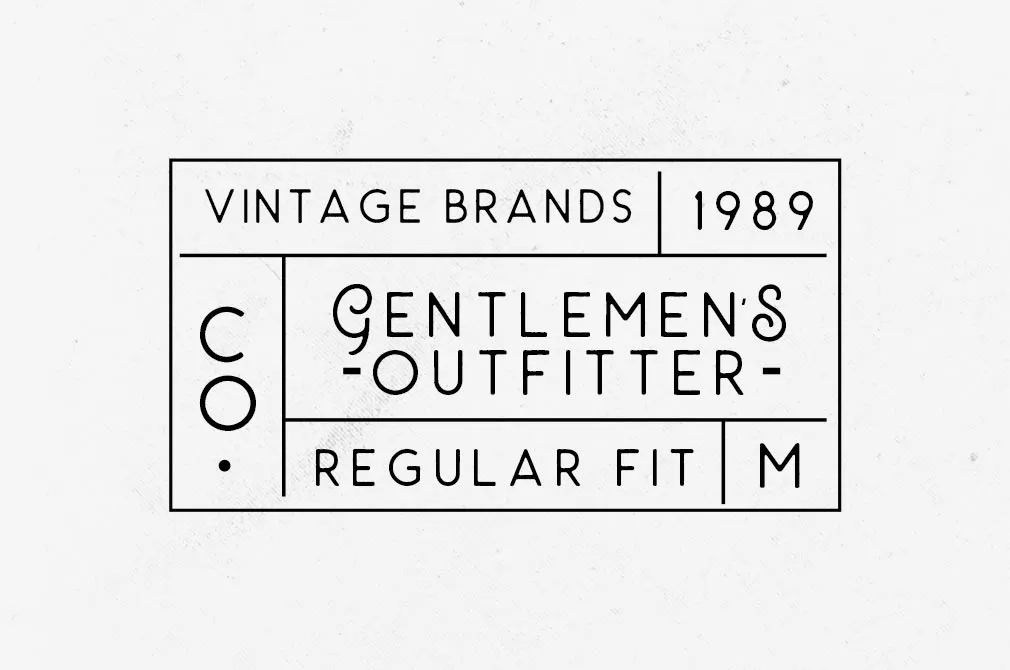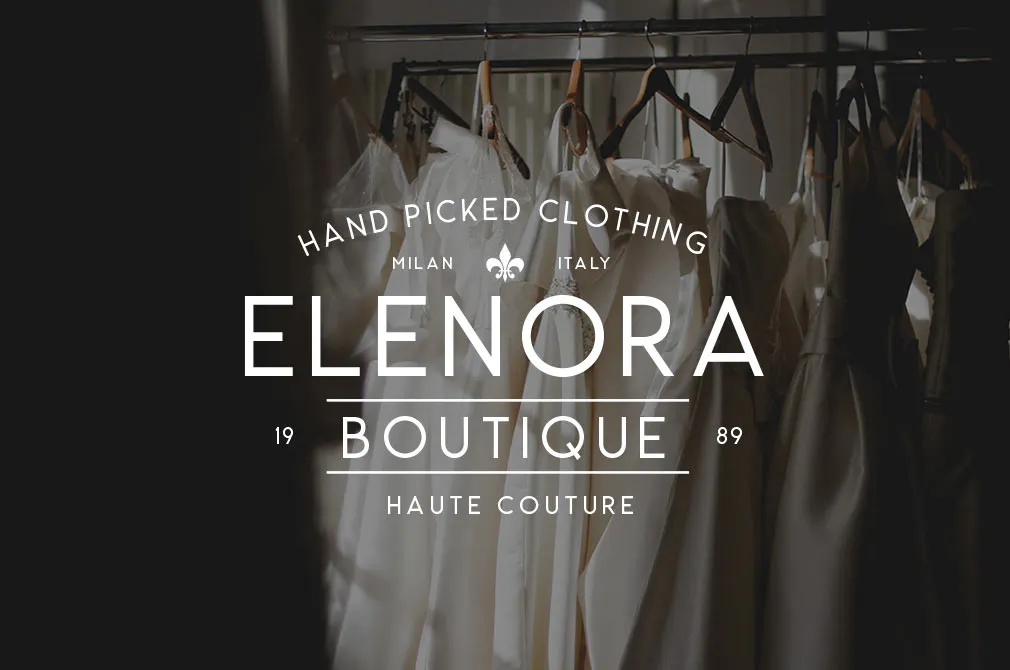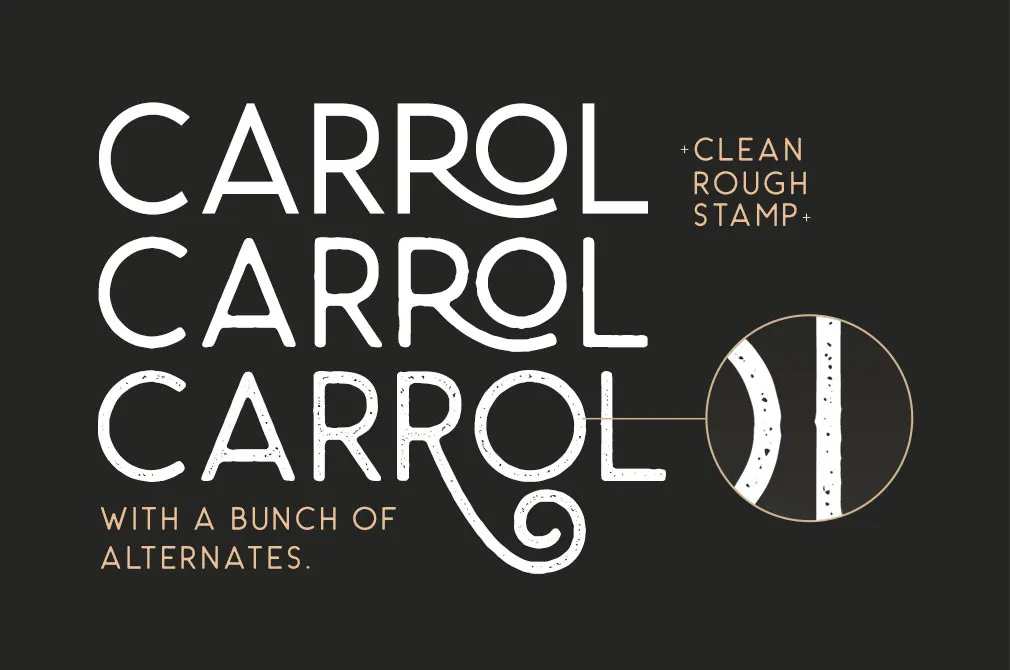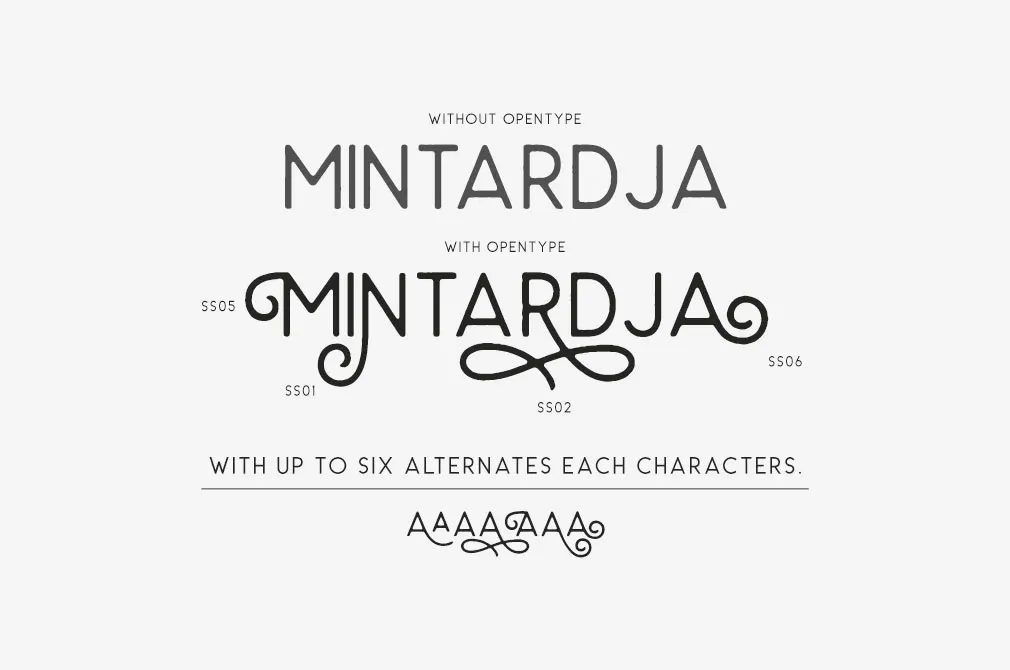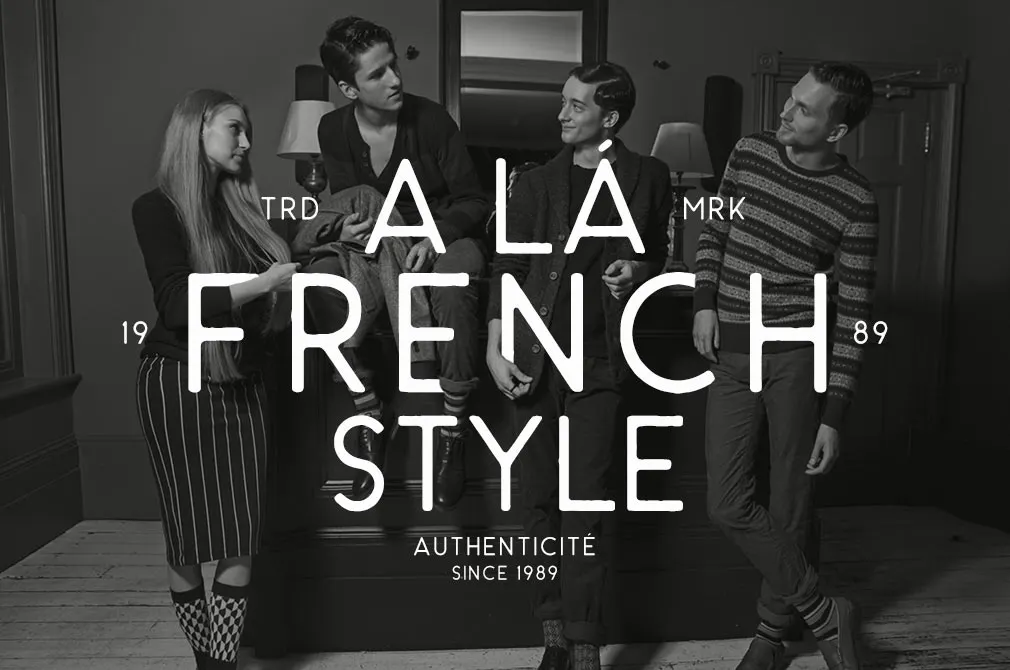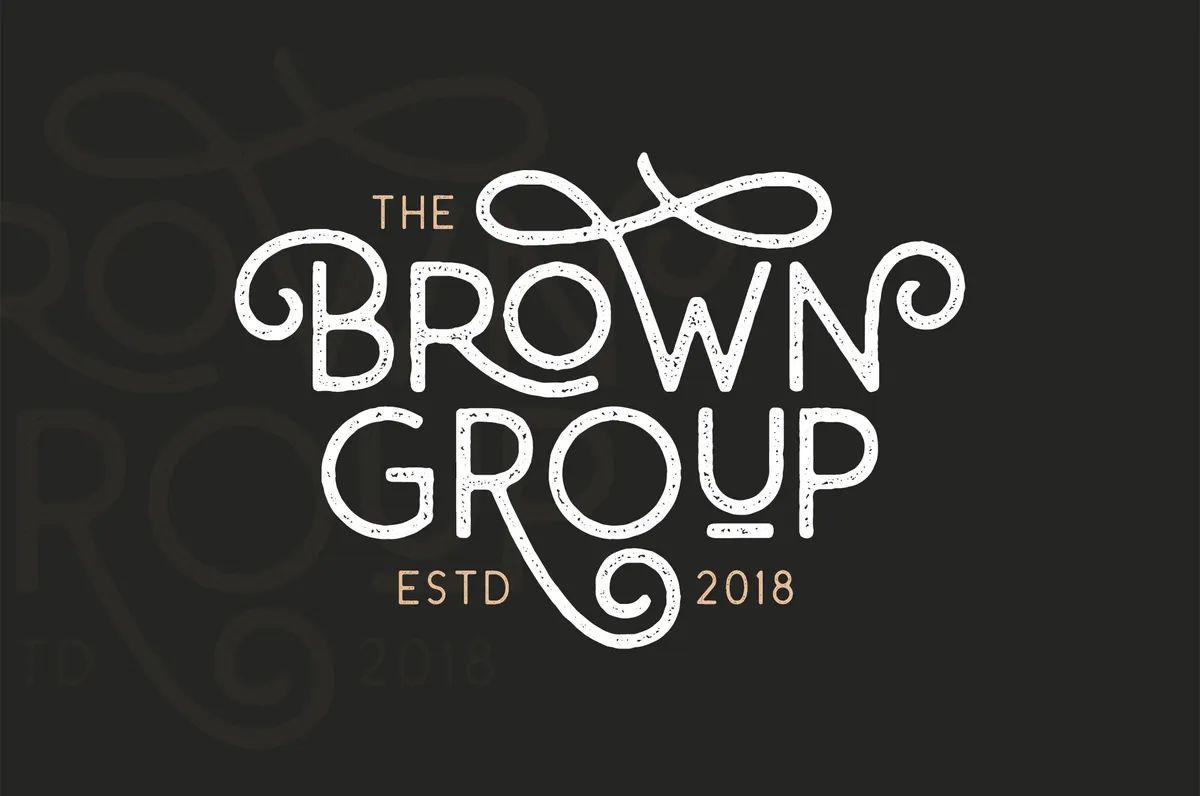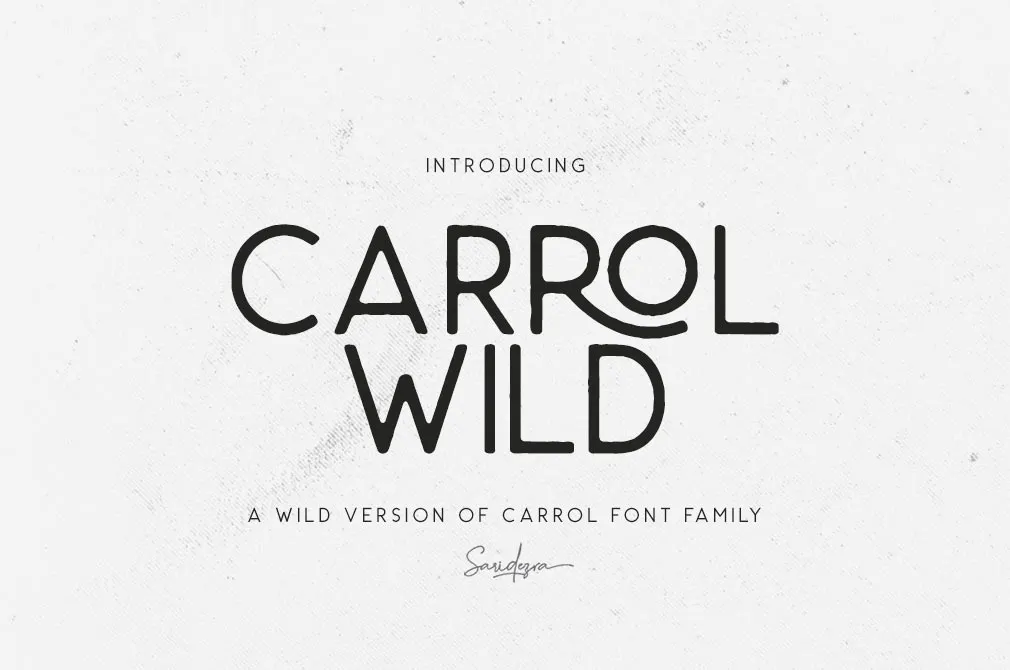
Carrol Wild Sans Serif Typeface
As it fairly comes from its name, this sans serif font has some edgy nature. Operating with its curly forms and kind of a rough texture, this font will be a nice addition to your brand logo!
You will find 6 types of alternates in each alphabet! And what if we told you there're also three styles of this font? Clean, rough and stamp can make the font look amazingly different in various contexts (even in other languages because it has support even for that). So take this font and apply to the headline, logotype, branding addition or use as an apparel inspiration!